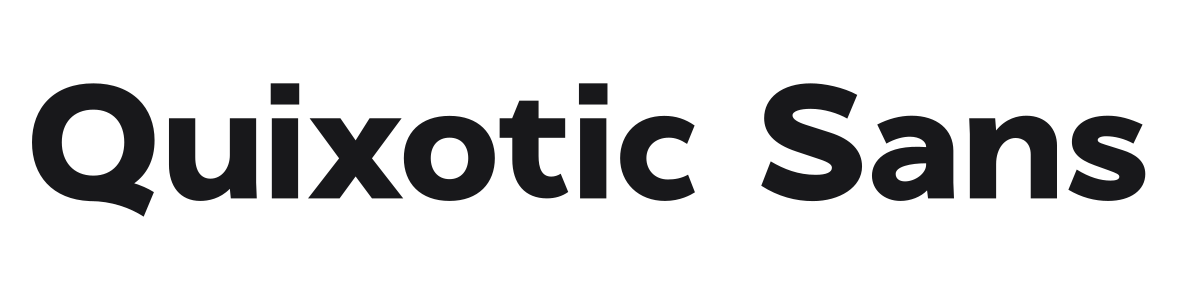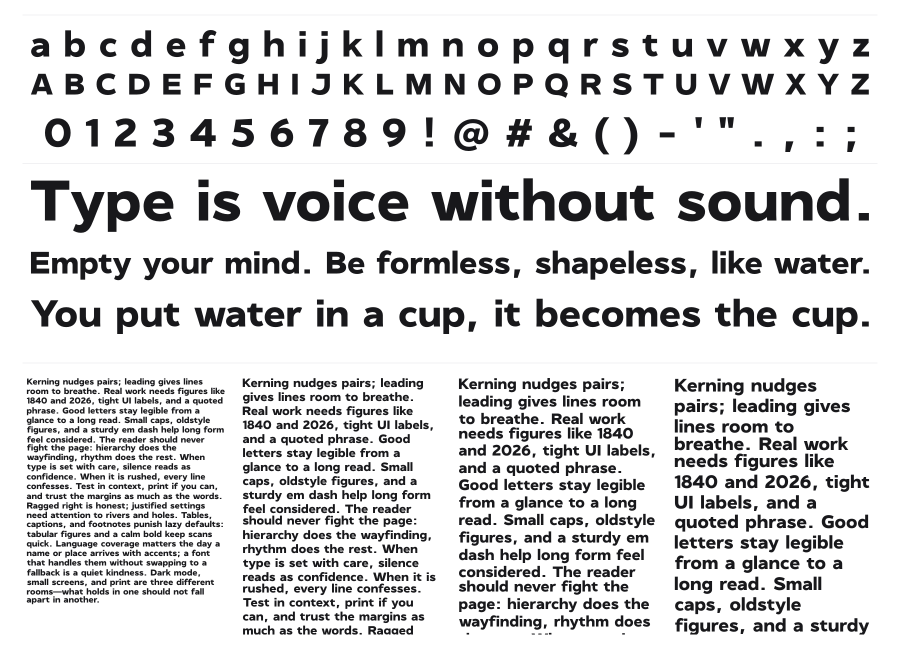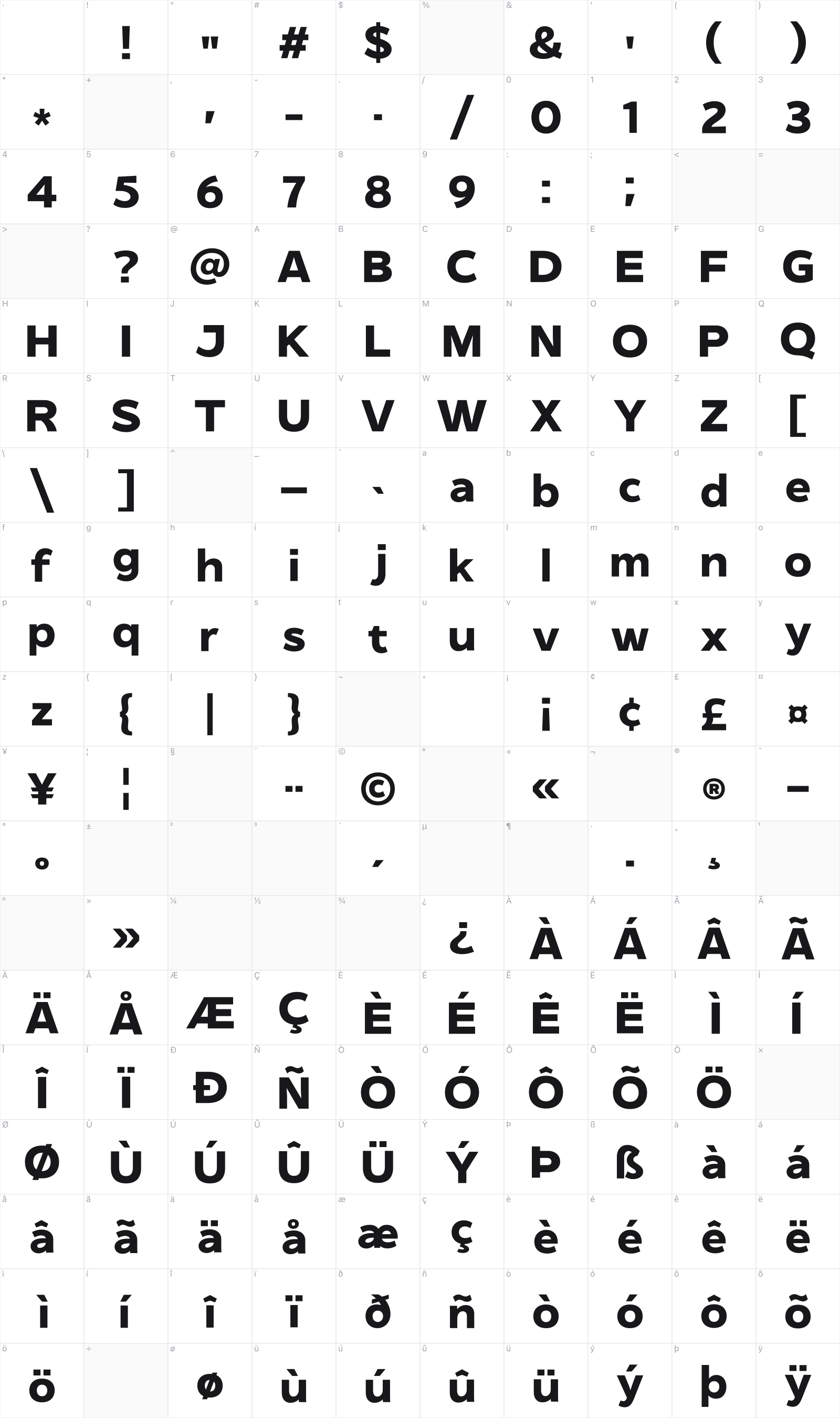
Quixotic Sans
Quixotic Sans is a heavy neo-grotesque with generous proportions and a clean, confident stroke. Its near-monoweight construction and rounded terminals give it a contemporary warmth that separates it from colder geometric heavyweights. Strong at large display sizes in branding, editorial, and advertising contexts.